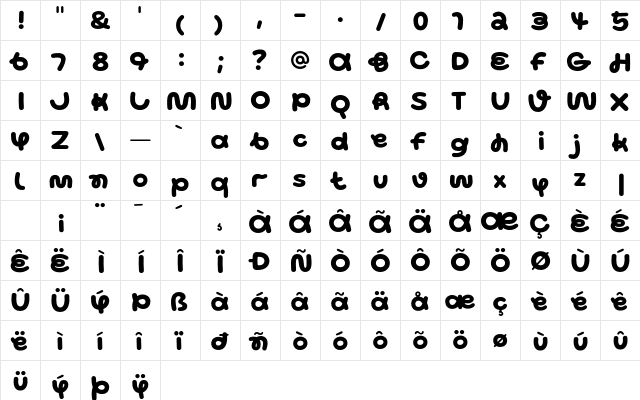
Complete Bauhaus Lace Rnd Display Bold glyph index. Displaying only characters natively supported by Bauhaus Lace Rnd Display Bold font.
Bauhaus Lace Rnd Display is built around its visual character rather than neutral utility - its distinctive forms are designed to make an impression at display sizes. Its bold stroke weight gives it real presence on the page.
Font Pairing: Pair with a clean neutral sans-serif for body copy to let Bauhaus Lace Rnd Display's character lead without overwhelming the composition.
Pro Tip: Use Bauhaus Lace Rnd Display exclusively at display sizes - it was designed to be seen, not read at length. Let a neutral companion handle body copy.